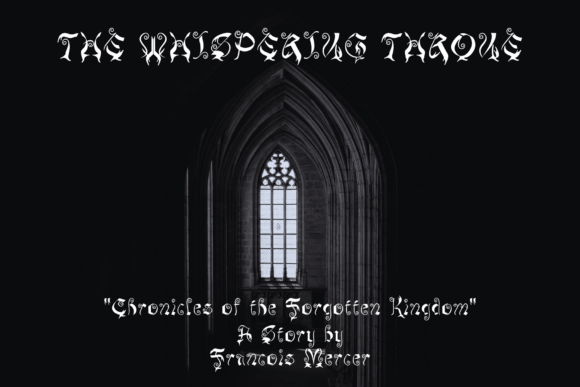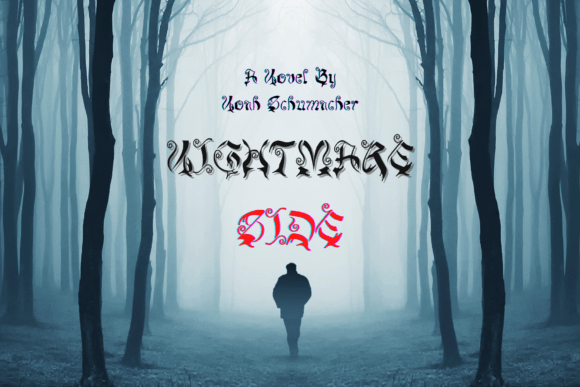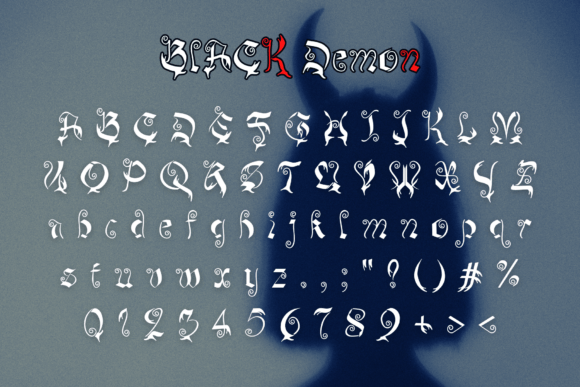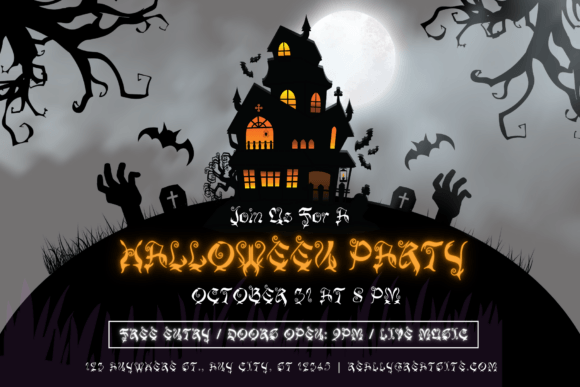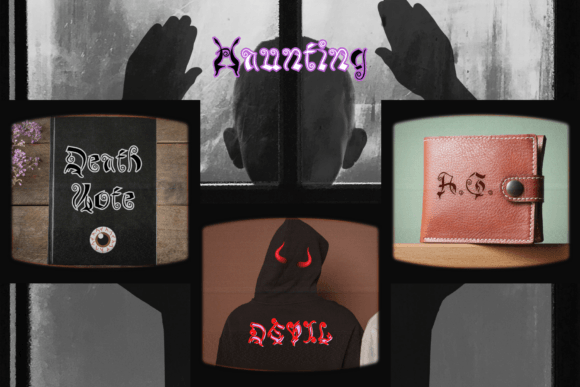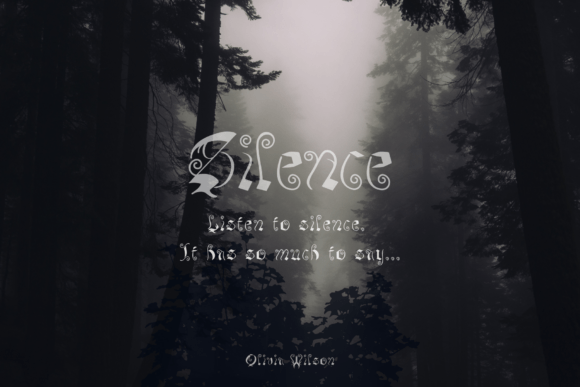
Unleash the Fearsome: Exploring the Black Demon Font
As the spookiest time of the year approaches, designers and crafters are on the lookout for unique and terrifying typography to add a touch of horror to their creative projects. Look no further than the Black Demon Font, a chilling typeface inspired by the fearsome nature of demons during Halloween. This font is a masterful blend of terrifying, twisted, and haunted elements, making it a standout addition to any design.
The Inspiration Behind Black Demon Font
The Black Demon Font draws inspiration from the dark and foreboding world of demons, bringing to life the eerie and haunting atmosphere of Halloween. The font’s design is rooted in the twisted and terrifying aspects of these mythical creatures, making it the perfect choice for projects that require a bold and unsettling touch. Whether you’re working on a horror-themed poster, a spooky invitation, or a creepy craft project, this font is sure to cast a spell on your audience.
What Makes Black Demon Font Unique?
So, what sets the Black Demon Font apart from other typefaces? The answer lies in its one-of-a-kind design, which combines the fearsome and haunted elements of demons to create a truly unique font. The Black Demon Font is not just another generic font; it’s a carefully crafted typeface that is both terrifying and mesmerizing. Its twisted and haunted aesthetic makes it an excellent choice for designers and crafters looking to add a touch of horror to their work.
Features of Black Demon Font
The Black Demon Font boasts a range of features that make it an attractive choice for designers and crafters. Some of its key features include:
- Fearsome Design: The font’s design is inspired by the terrifying nature of demons, making it perfect for horror-themed projects.
- Twisted and Haunted Aesthetic: The font’s twisted and haunted aesthetic sets it apart from other typefaces, making it a unique addition to any design.
- Unique and Creative: The Black Demon Font is a one-of-a-kind typeface that is sure to add a touch of creativity to any project.
- Suitable for Various Projects: Whether you’re working on a poster, invitation, craft project, or any other design, the Black Demon Font is a versatile choice that can be used in a variety of creative projects.
How to Use Black Demon Font in Your Designs
The Black Demon Font is a unique and terrifying typeface that is sure to add a touch of horror to any design. Its fearsome design, twisted and haunted aesthetic, and versatility make it an excellent choice for designers and crafters looking to create something truly special. Whether you’re working on a horror-themed project or just want to add a touch of creativity to your design, the Black Demon Font is a must-have font that is sure to cast a spell on your audience.